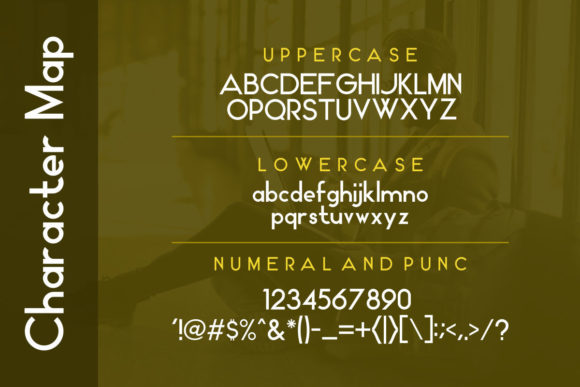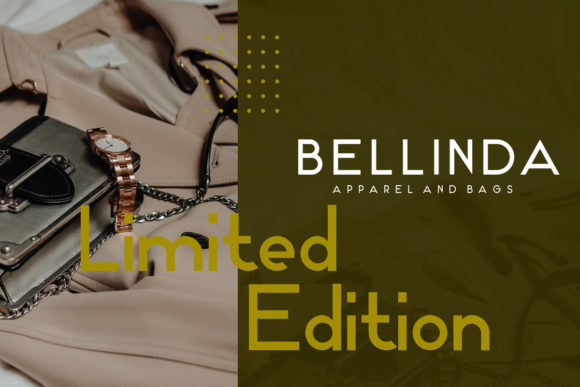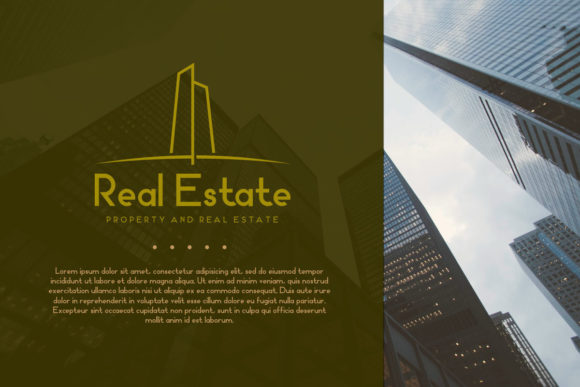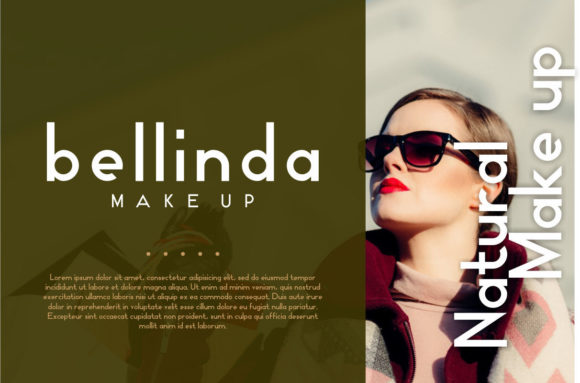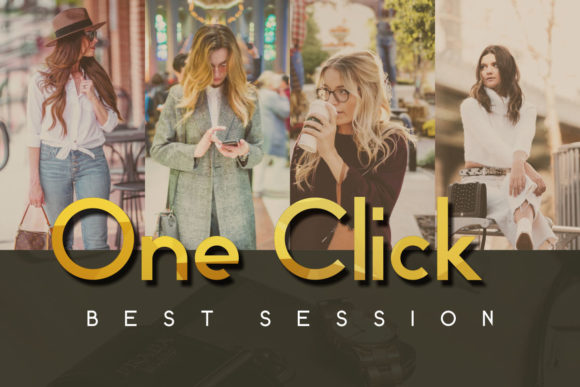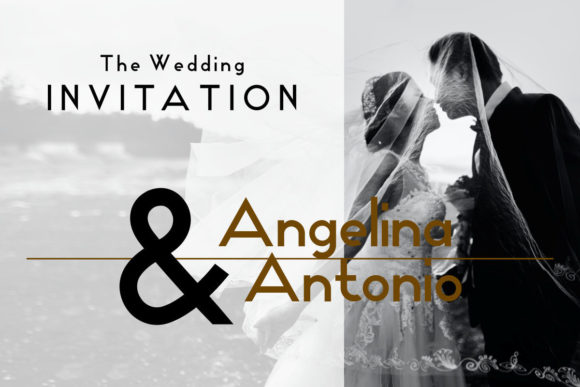
Introduction to One Click Font
Remember the thrill of starting a new creative project, when the possibilities are endless and the only limit is your imagination? It’s that moment when you’re brainstorming ideas, sketching out concepts, and experimenting with different fonts to find the perfect fit. For designers, finding the right font can make all the difference between a good design and a great one.
Enter the One Click Font, a stunning sans serif font that’s perfect for all your design project needs. With its sleek, modern aesthetic and luxurious impression, it’s no wonder this font is a go-to choice for designers and businesses alike. Whether you’re creating a company logo, product packaging, or even a t-shirt design, the One Click Font is sure to elevate your design to the next level.
Key Features of One Click Font
- High-quality font library with a wide range of styles and designs, perfect for any creative project.
- Transparent background option for seamless integration into any design, including web and print projects.
- Unique and exclusive designs not found in other design resources, ensuring your project stands out from the crowd.
- Resolution: 300 DPI, ensuring crisp and clear font display in high-resolution designs.
- Size: scalable to any size, from small titles to large headings, making it perfect for a variety of design applications.
Honest Review: One Click Font
I recently stumbled upon One Click Font, a free download of a high-quality font that has been a game-changer for my creative projects. As a designer, I’m always on the lookout for reliable design resources, and One Click Font has definitely earned its place in my toolkit.
What works well for me is the font’s versatility – it’s suitable for a wide range of applications, from body text to headings. I’ve used it for both digital and print projects, and the results have been impressive. The font also features a transparent background, making it easy to layer and combine with other design elements.
- ✨ High-quality font suitable for various design applications
- ✨ Transparent background for seamless layering
One potential limitation is that the font may not be suitable for all design styles or preferences. Additionally, some users may find the font too minimalist or plain.
Overall, I’m thoroughly impressed with One Click Font. It’s a valuable addition to any designer’s toolkit, and I’d highly recommend it to anyone looking for a reliable, high-quality font for their creative projects.
Getting the Most Out of One Click Font
To get the most out of One Click Font, use it with a transparent background to create stunning designs. You can also experiment with different font combinations to find the perfect look for your creative project.
One Click Font is commonly used in:
- Print and digital marketing materials